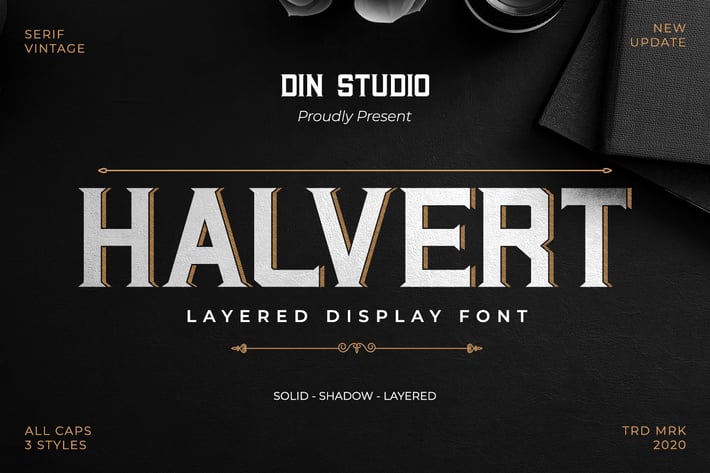
Halvert-Layered Display Font
Halvert is an amazing display font. The font is suitable for any project like branding , lettering , tshirt print and many others.